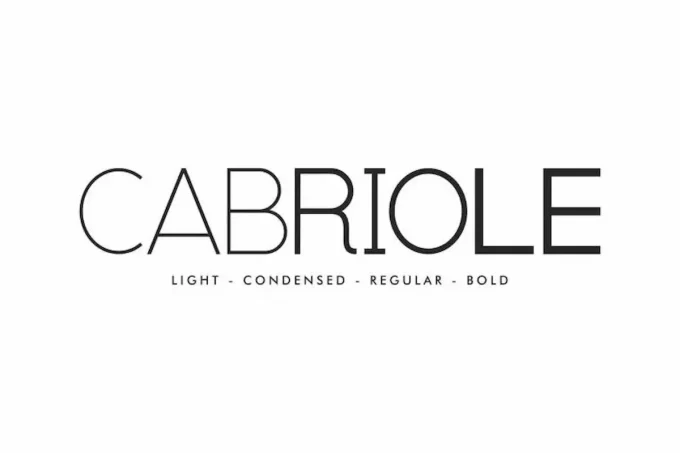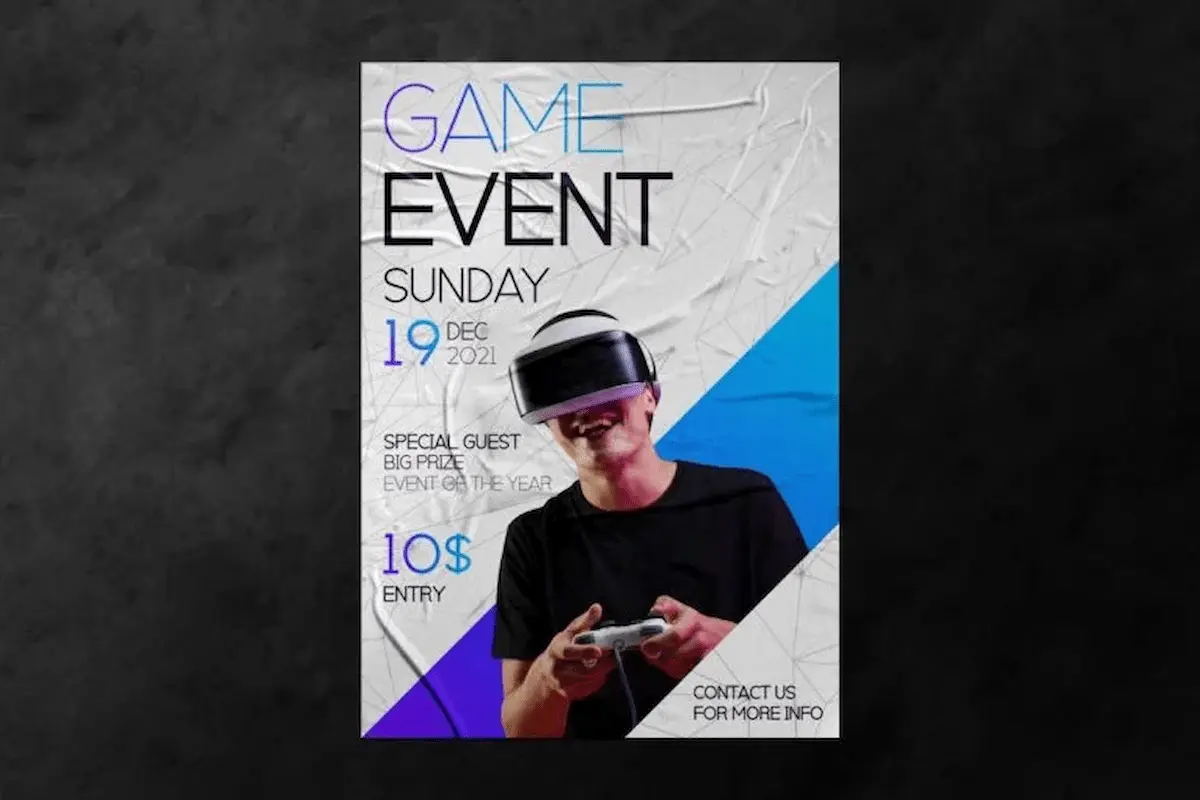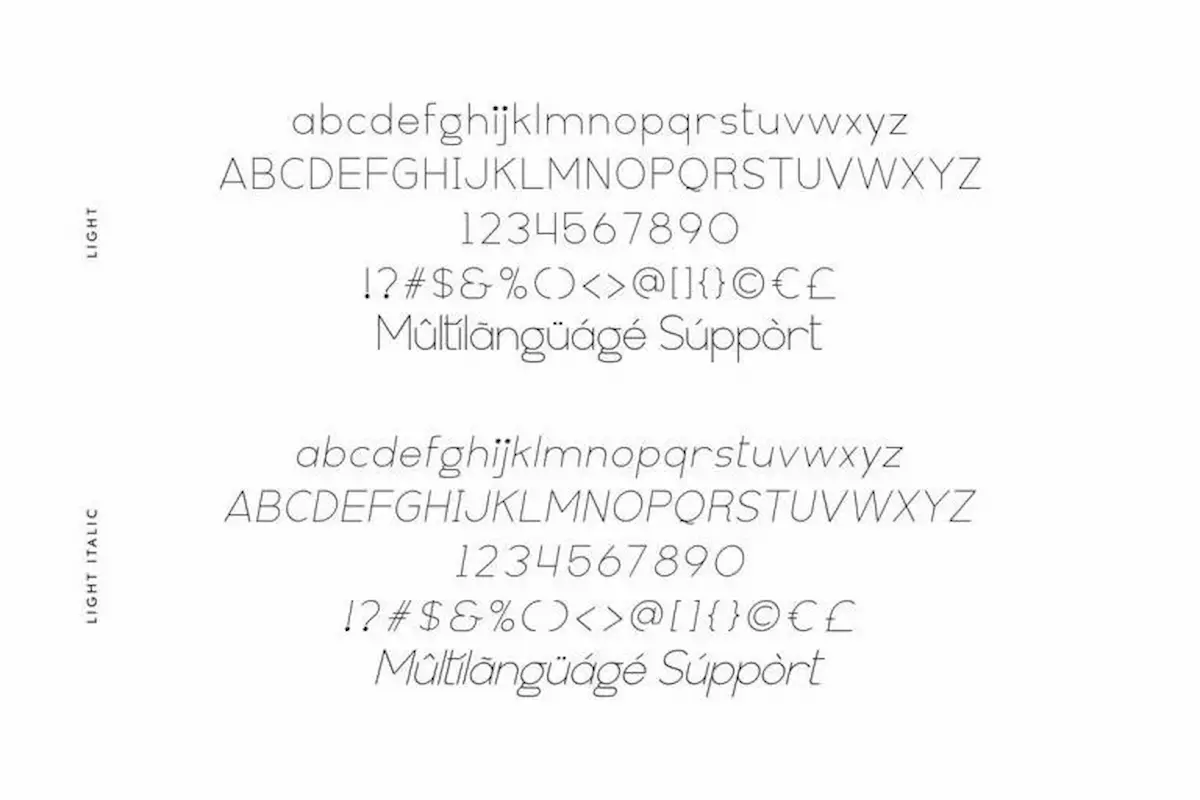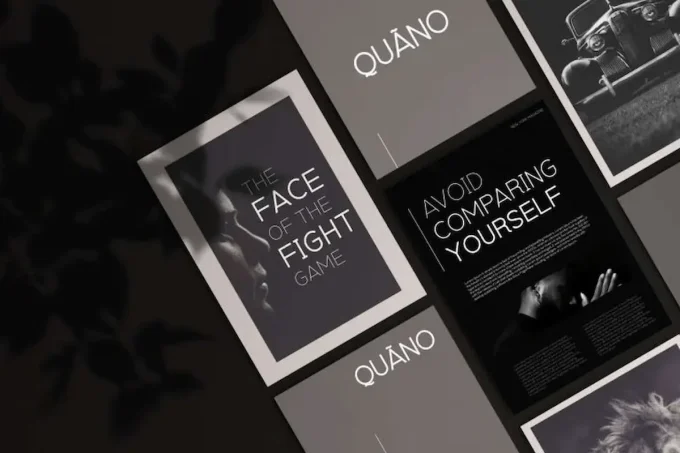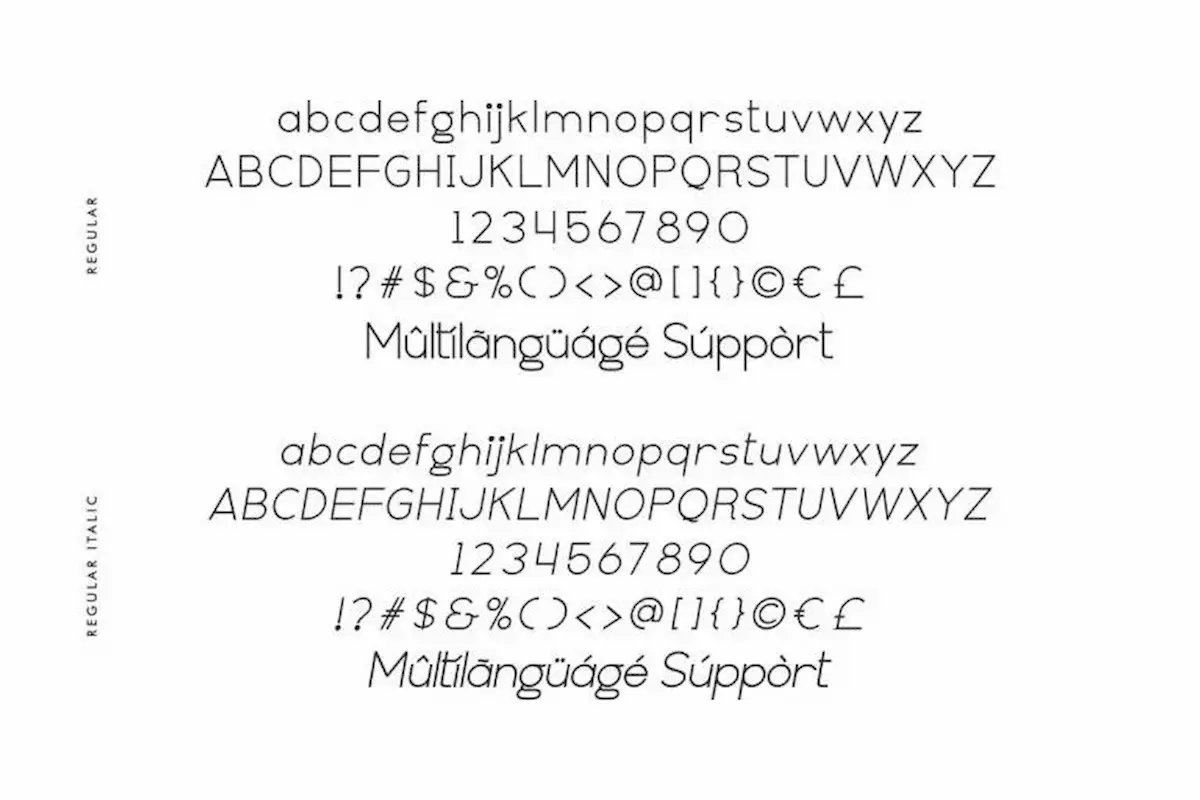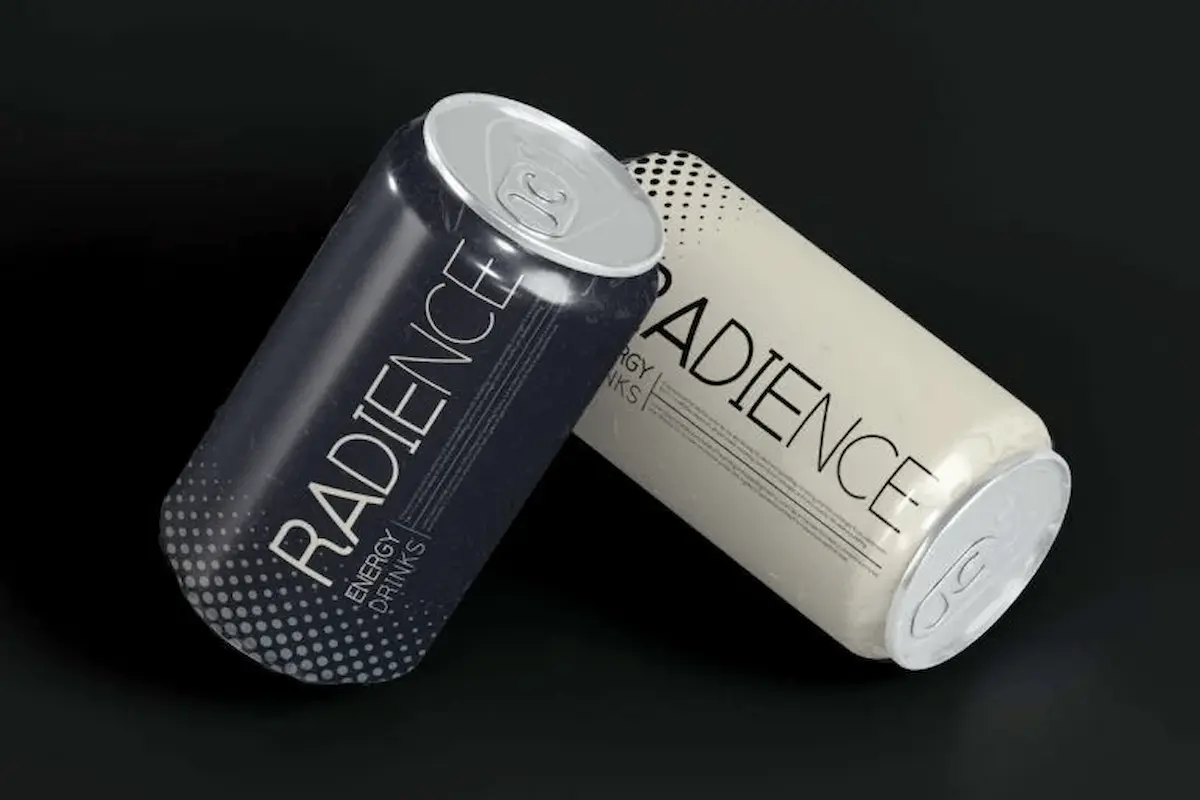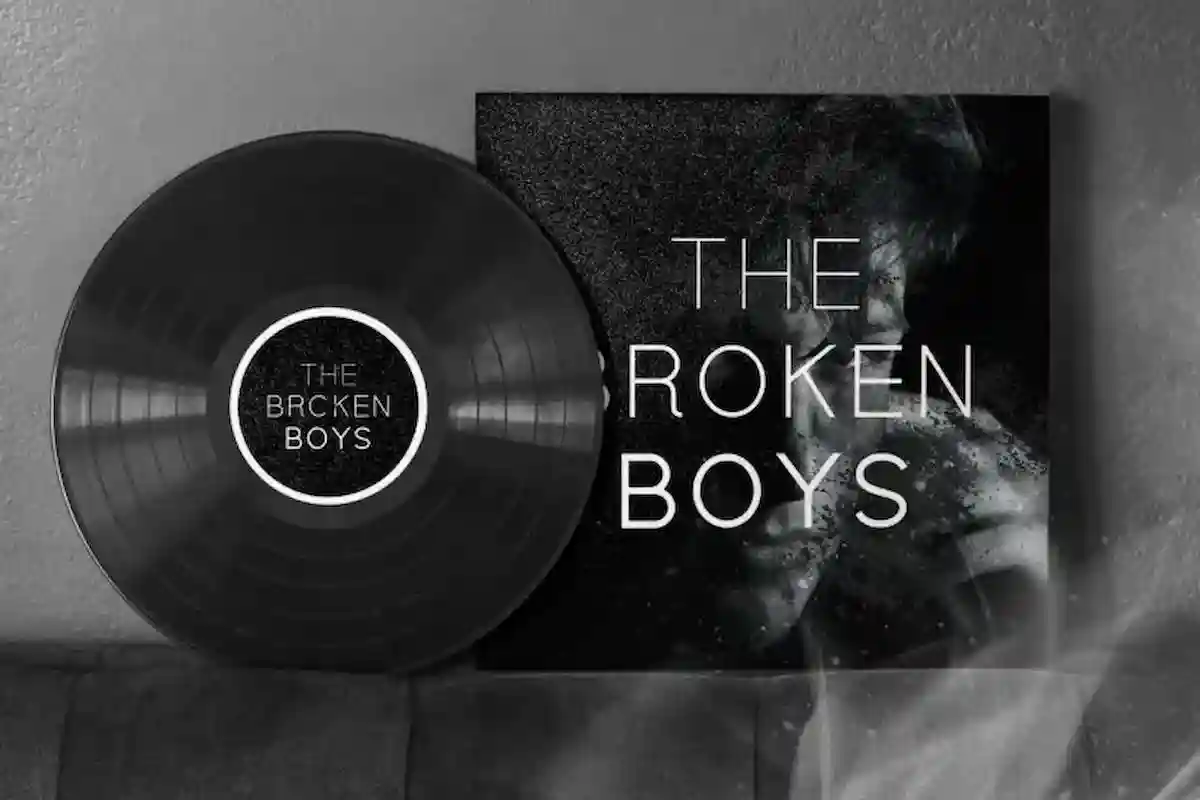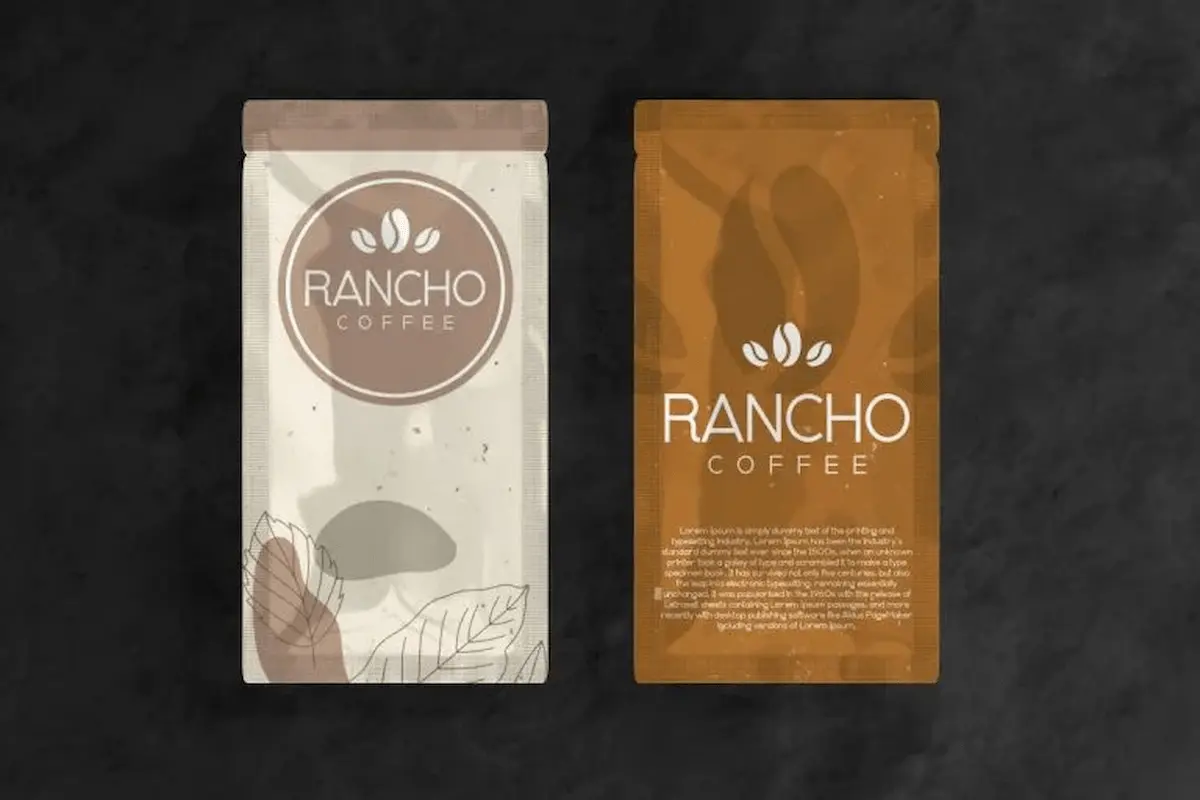
Cabriole is a minimalist sans serif font family by NihStudio, made in 2021, with eight different awesome styles and great for your various extraordinary projects
Cabriole is a sans serif display font family originally designed by NihStudio. It will be suitable for many business and industries including entertainment, games, magazine, movies, technologies, website etc. On the package you will get :
The Cabriole has 8 styles : Regular, Italic, Bold, Bold Italic, Light, Light Italic, Condensed and Condensed Italic